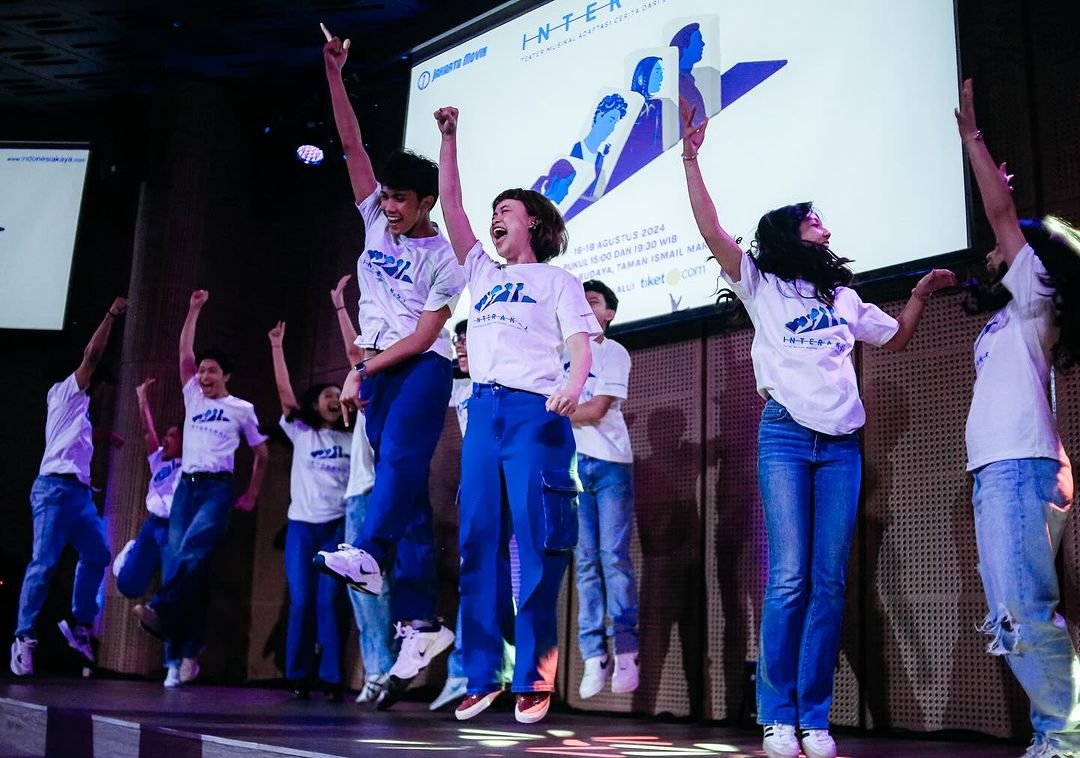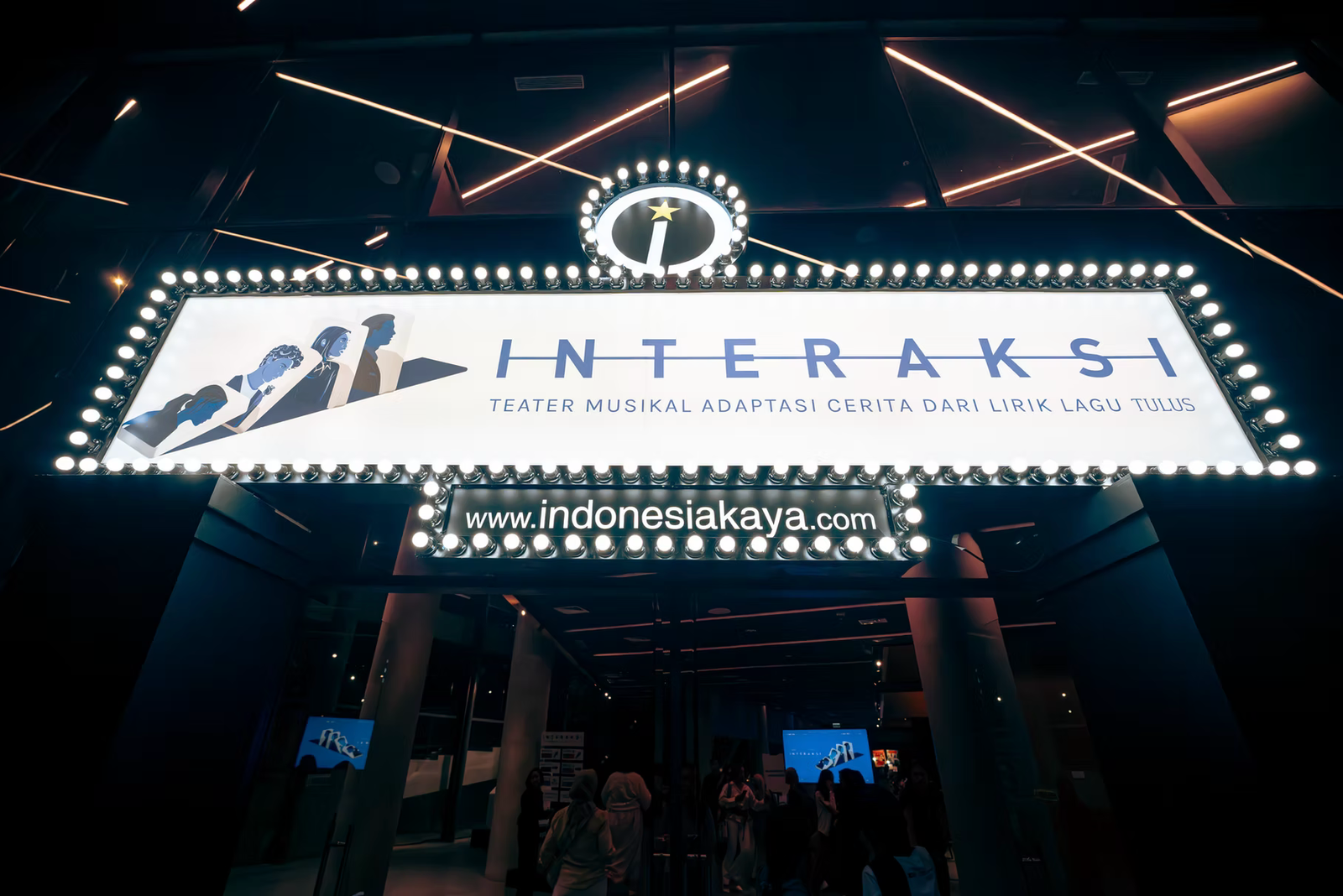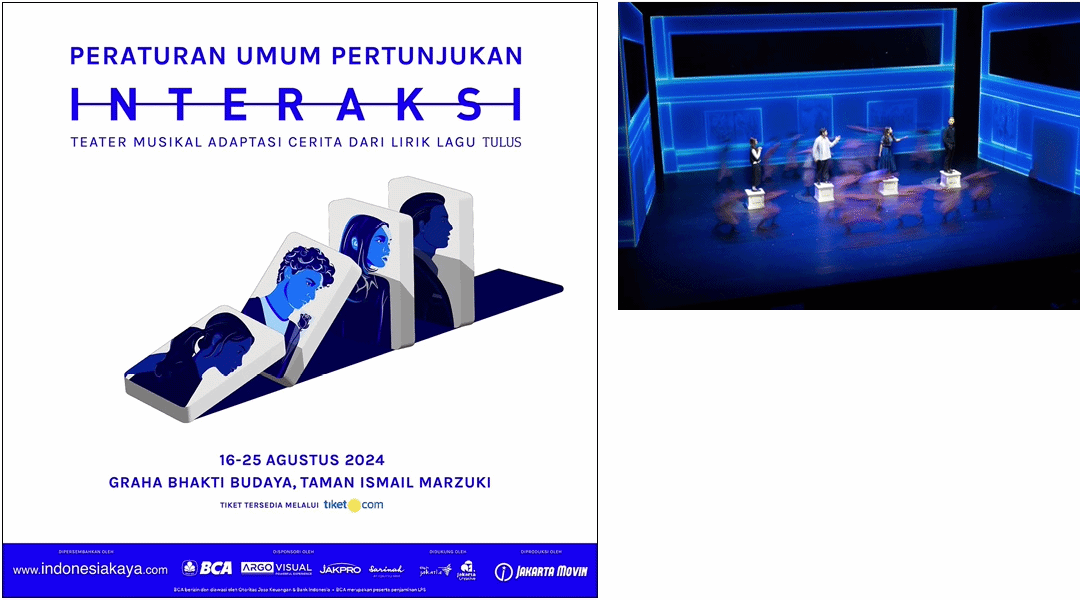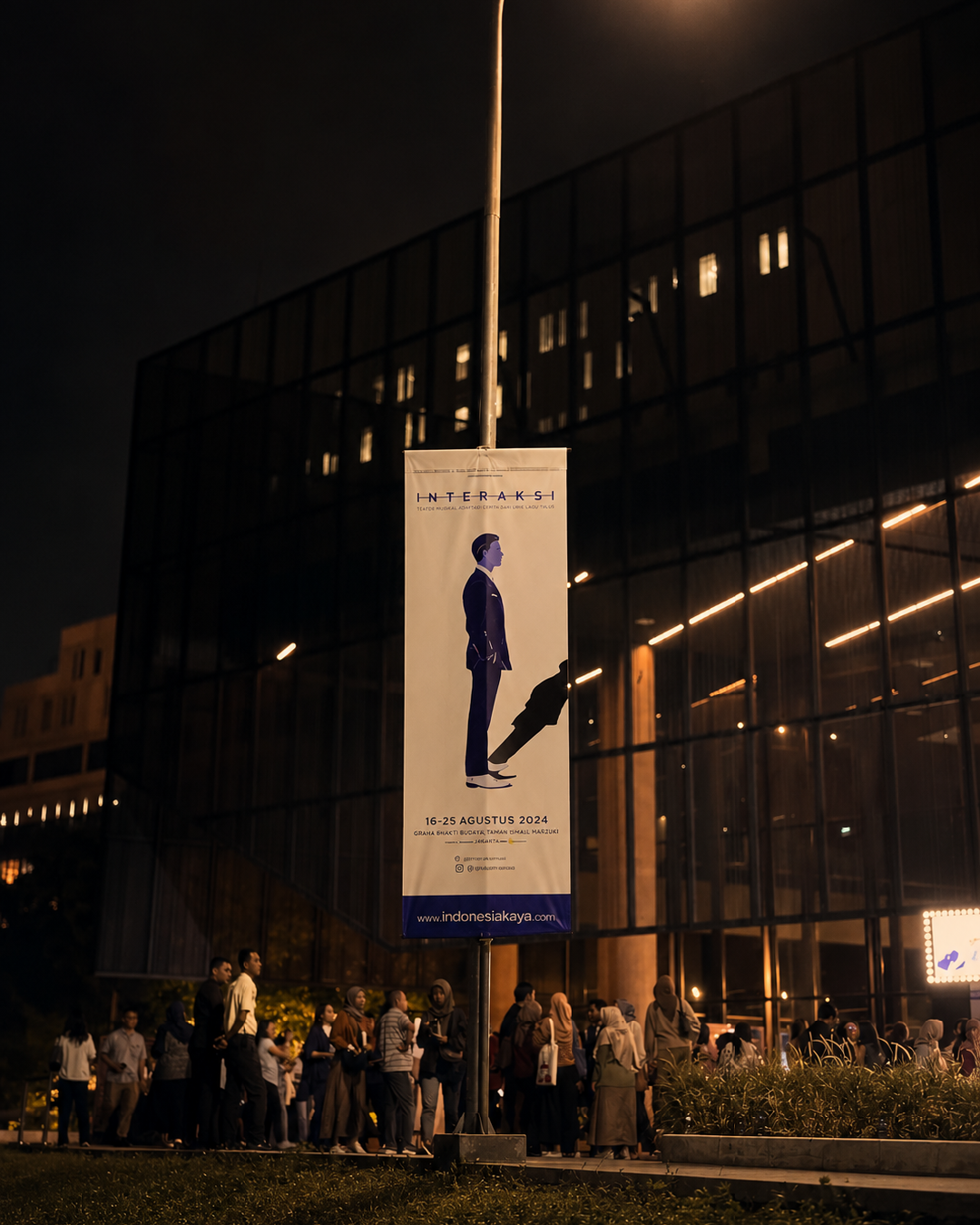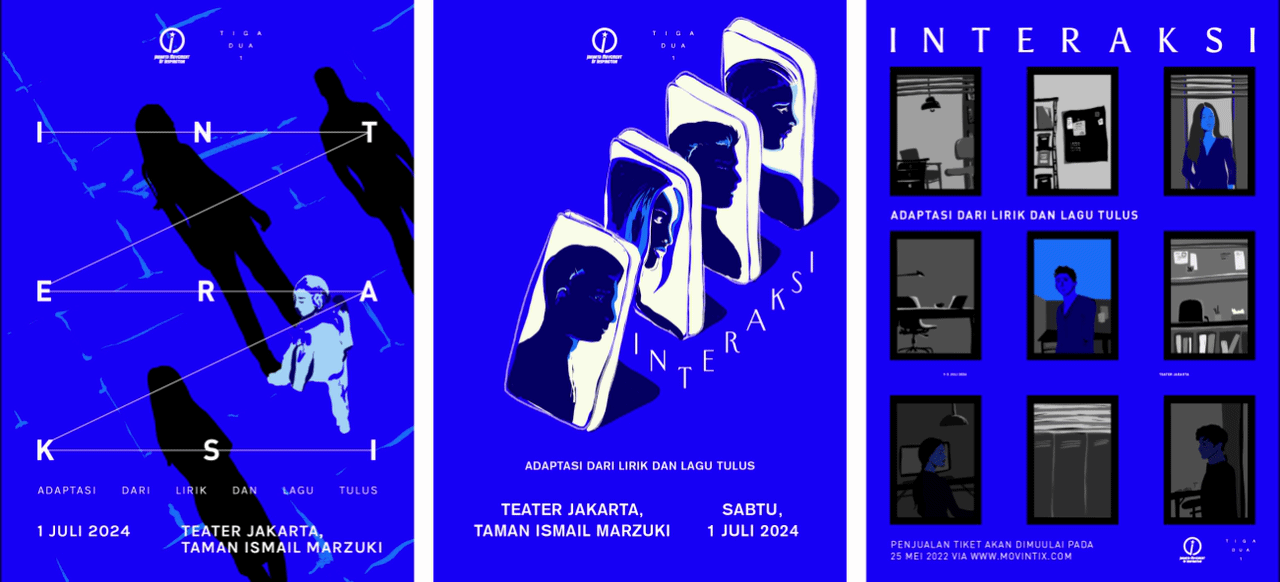
INTERAKSI
Deliverables: Brand identity, character illustration, poster design, typography
The Brief
Jakarta Movin commissioned a visual identity for a musical theatrical IP built around the songs and lyrics of Indonesian artist Tulus, Interaksi. The production needed its own world that distinct enough to stand alone while coherent enough to stay in conversation with Tulus’s visual language, which is modern and restrained.
The thematic brief: hope, journey and transformation, meeting and separation.
The Work
The central concept was connection.
The logo makes it structural. The threads in the mark trace the letters of INTERAKSI one by one. Connection is not illustrated by the mark; it is the mark. No other visual language could trace that chain without introducing something extraneous, and a straight, clean thread stays in register with Tulus’ own minimalist branding.
Each of the four characters is represented by an illustration. Their relationship mirrors the logic of dominoes: each connected to the next, each intersection a point of meeting or separation. Together, the four form a complete picture. Apart, each holds its own.
The color system is drawn directly from Tulus’ album ‘Manusia’. The album is the source material the theatrical production is built from, and its palette carries the emotional register of that body of work into the physical world of the production.
Typographic Decisions
The illustration and color carry the weight. The type holds the system together from the side. Quiet type next to bold illustration is a decision about where the eye goes first.
The System in Use
Across big banners, photo backdrops, and t-shirts, the domino form holds—the four illustrations placed together make connection visible at the size an audience walks past. At closer range, the same logic carries through lanyards, ID cards, and a booklet. On small banners, a single character is enough. The signage system extends it into navigation. Every surface is a different scale of the same decision.